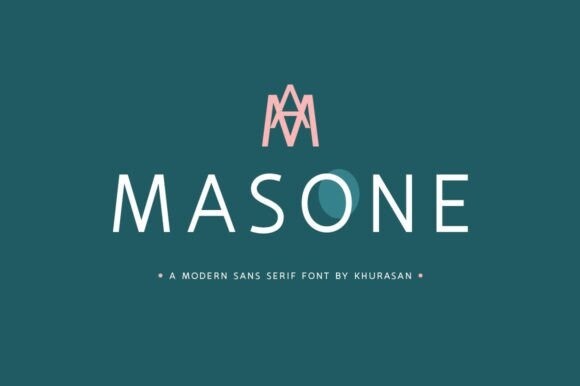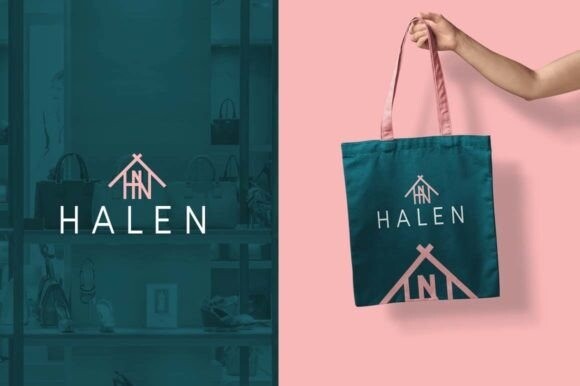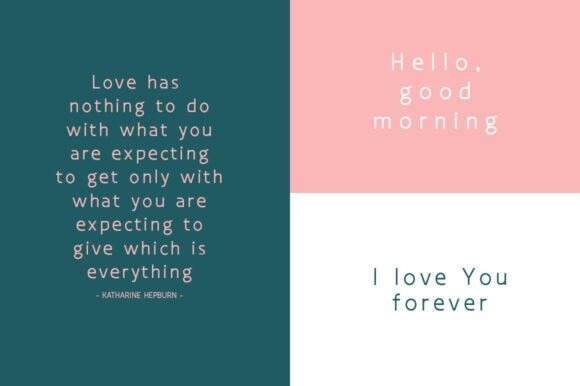
Masone Font
Introducing, Masone font is a elegant sans serif typeface for your great project. Masone font suitable for logo, branding, greeting card, poster and any design that you create.